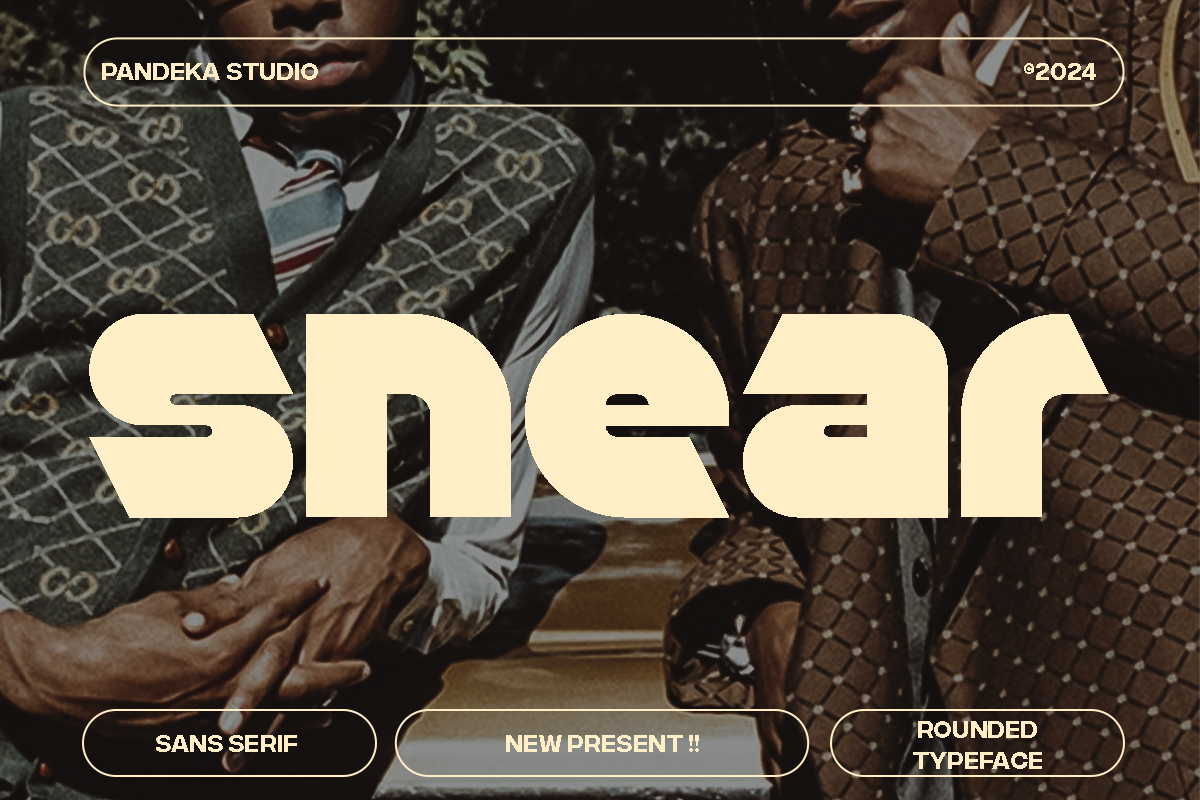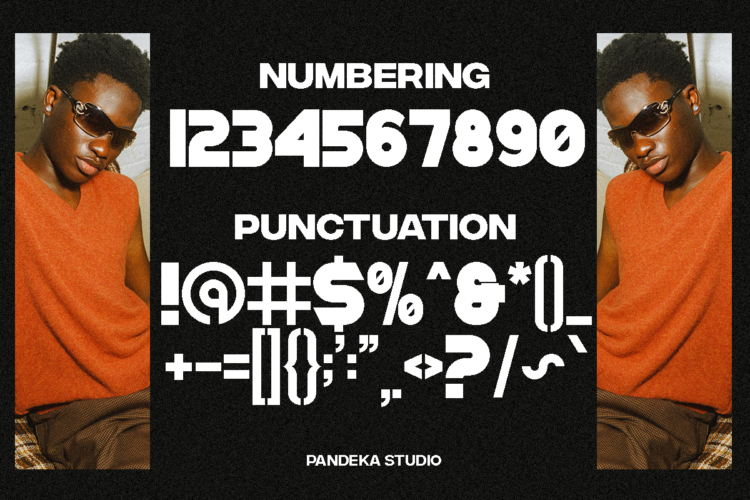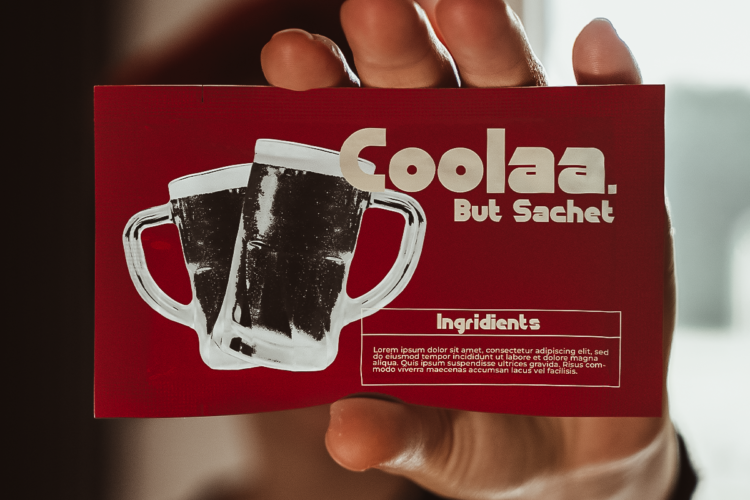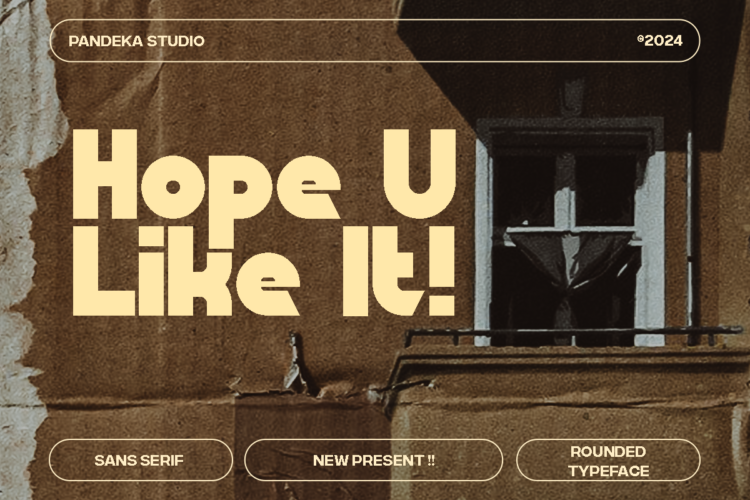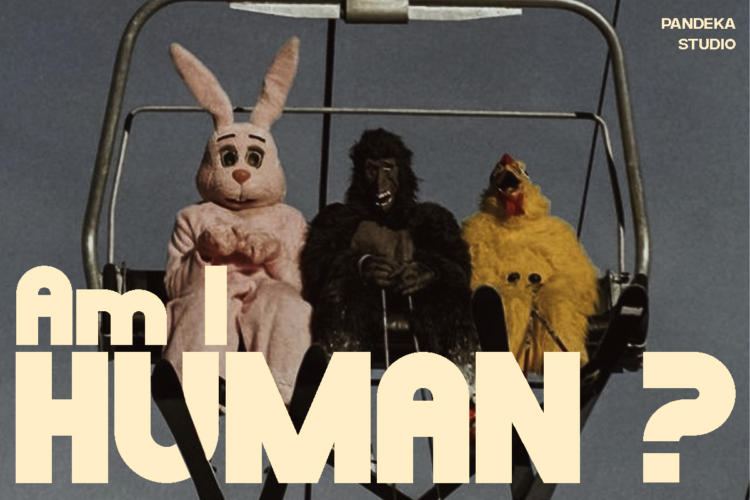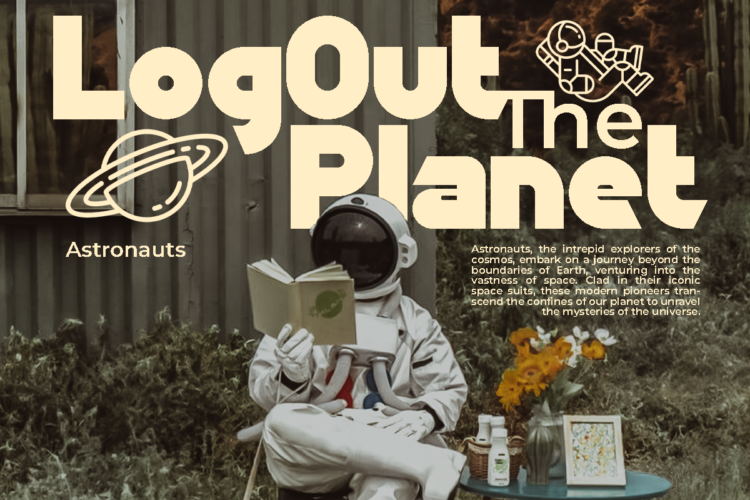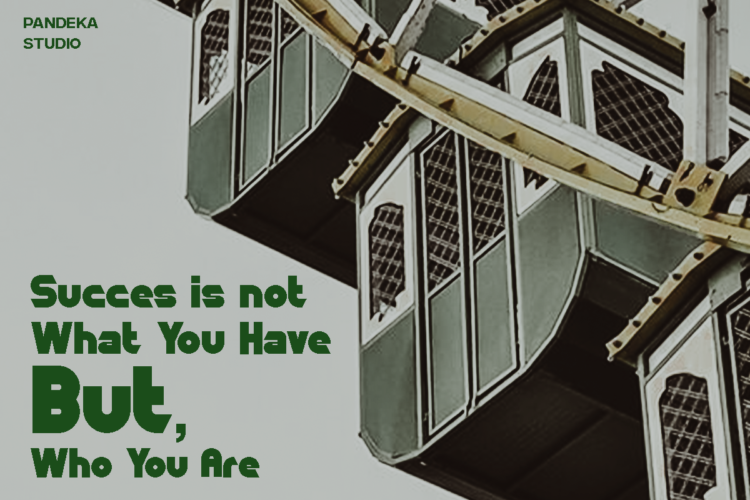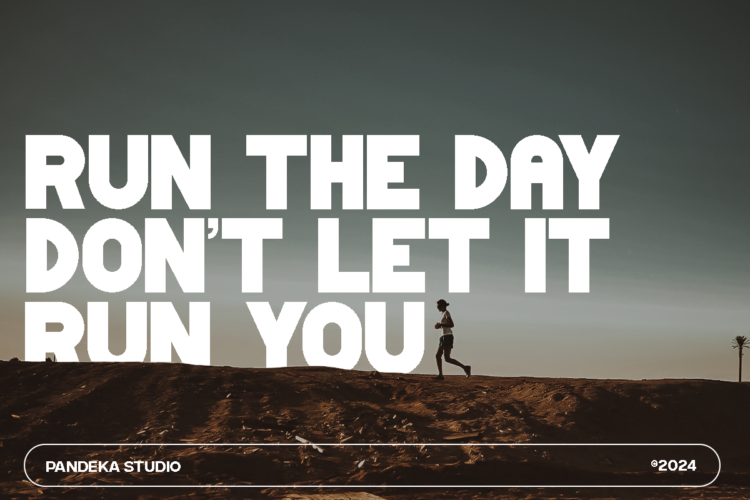
Snear Regular
Introducing Snear! An Display typeface with mid century feeling.
Snear is a sans-serif typeface with a heavy touch. The concept is a big x-height and small ascender. This font is perfect for branding, titling, headline, and more.
Snear – Sans Display Font